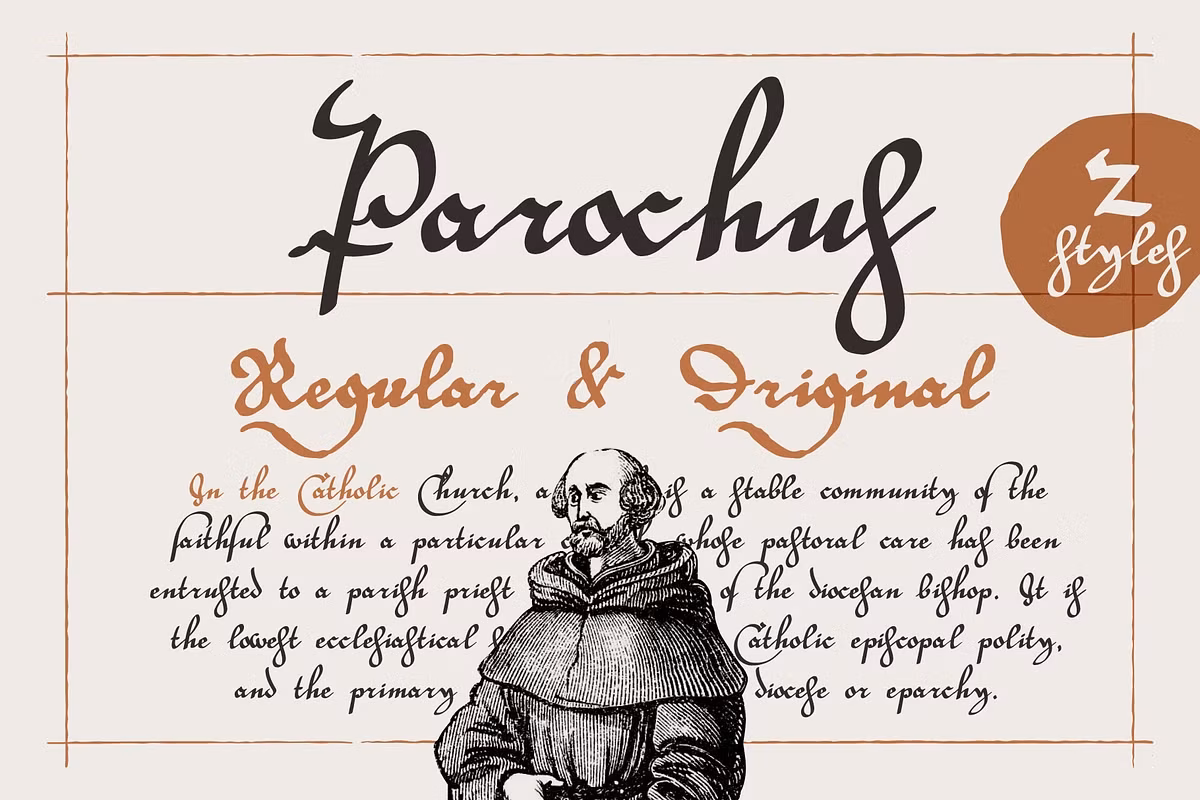
Add an antique, historical charm to your designs with Parochus Medieval Script Font Family Free Download. This elegant and intricate font family is inspired by medieval calligraphy, making it perfect for projects that require a classic, vintage, or old-world aesthetic, such as book covers, logos, wedding invitations, and vintage branding.
Parochus combines the beauty of traditional script with ornate detailing, giving your designs a timeless, medieval flair. The font family includes a variety of styles and weights, including uppercase and lowercase letters, numerals, punctuation, and multilingual support, offering versatility for different types of design layouts.